Logo plays a pivotal role in presenting a brand’s identity. When it comes to crafting the perfect logo, every element matters. One of the most critical elements is the font. If you want to make a luxurious and elegant logo, here are some elegant fonts for logos.
A Curated Selection of Luxurious and Elegant Fonts for Logos
Luxurious and elegant fonts are best with serif, san serif, script, and brush-type fonts. Here are recommendations for elegant fonts for logos.
1. Bulgatti
Bulgatti is a luxury script font. It has a strong and masculine feel in every stroke. Bulgatti excels at displaying the letter T or double letter in your brand. In addition, it is comfortable to read. It is also suitable for a signature-type logo.
2. Kattalyna
It is a hand-crafted brush signature font. Kattalyna radiates a young feel whilst keeping its elegance. Complete it with pastel colors; you have the perfect lovely and soft logo design.
3. Kingstyle
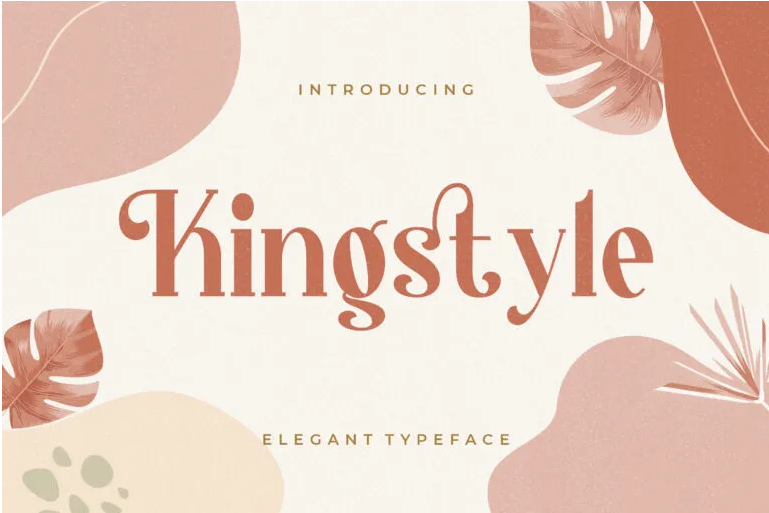
Kingstyle is an elegant typeface serif font. The font has very distinguishable dots for the letters i and j. With an artistic touch, Kingstyle uses a creative serif that makes this font elegant.
4. Westlynn
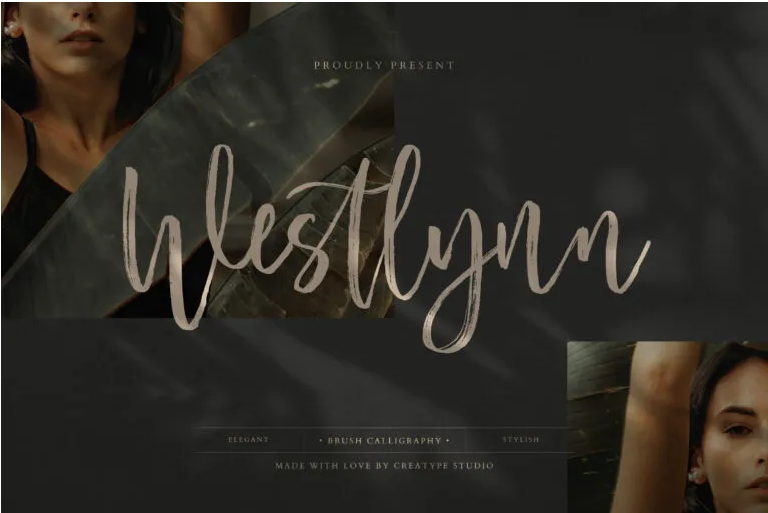
If you look at it at a glance, Westlynn is just beautiful. It’s a brush calligraphy font with a script writing style. Westlynn has the charm of asymmetrical letters. Perfectly fit for a unique typography of your logo design.
5. Graphire
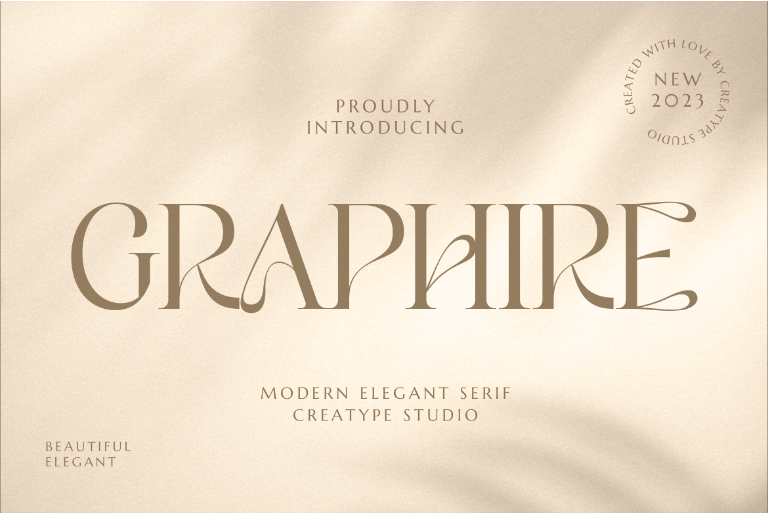
For a more modern look on your elegant logo, you can take a look at Graphire. Graphire is a serif-type font. It is an elegant font for logos with a clear, thick, and thin stroke contrast. In addition, the alternatives (the curves) allow you to personalize your logo further.
6. Kallisoka
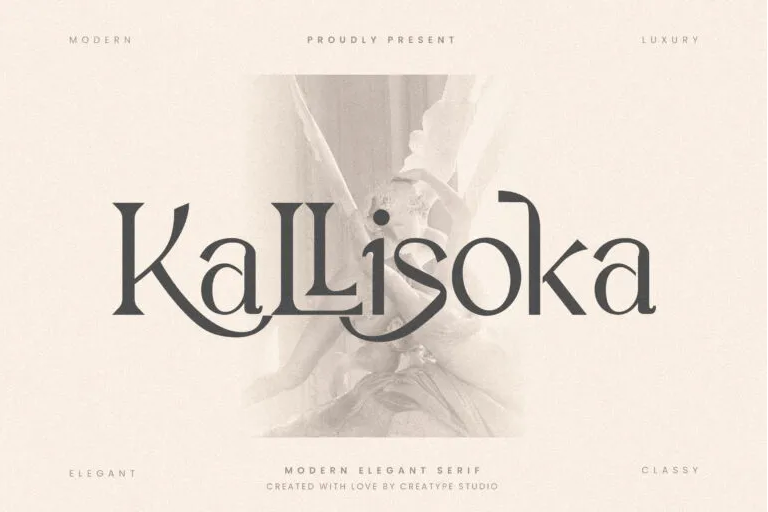
Kallisoka is a unique serif font. It is a very versatile font and you can use it for an elegant vibe or a natural look. Kallisoka is easy to read, which further highlights your logo. Its many alternatives make it a perfect font for your logo design.
7. Quadrangle
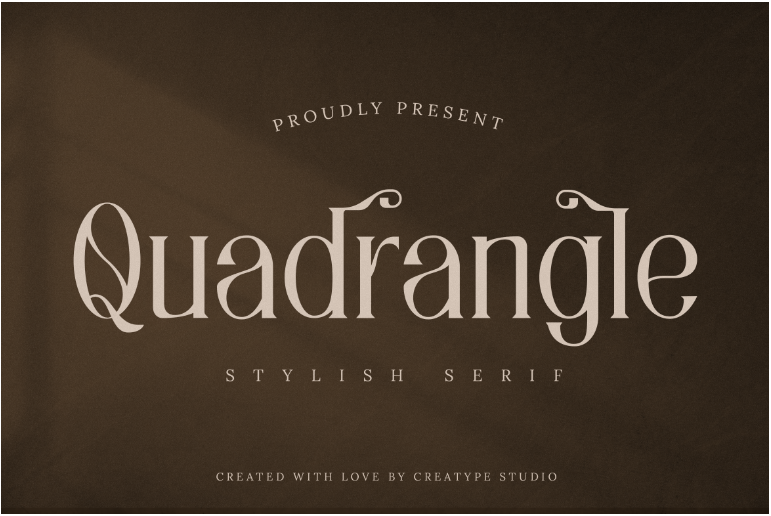
Quadrangle is a stylish serif font. The uniqueness of this font lies in its characteristics. It fits both luxurious and vintage logos, depending on how you pair it with colors. The sharp edges and that harmonious twist made Quadrangle unique and elegant.
8. Wastogi
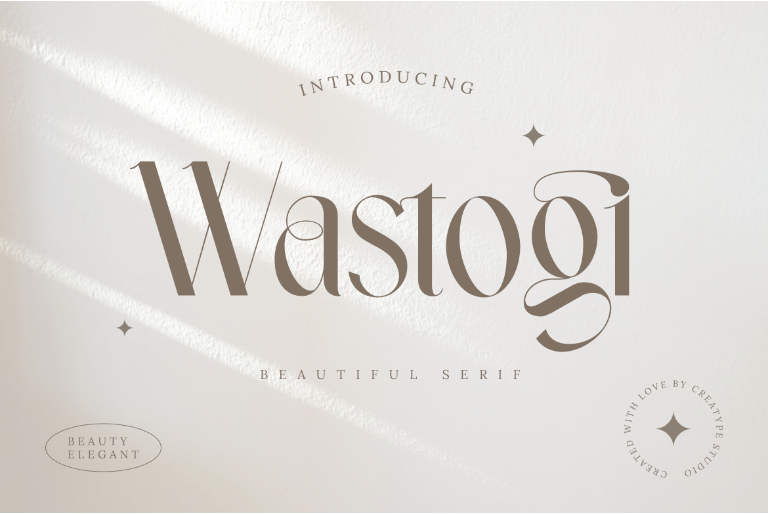
Another serif font with remarkable beauty. Wastogi certainly fits as an elegant font for logos. Every stroke in the letter is simple and light, but with the prominent style of the artist, the font becomes luxurious and sleek.
9. Jeteveux
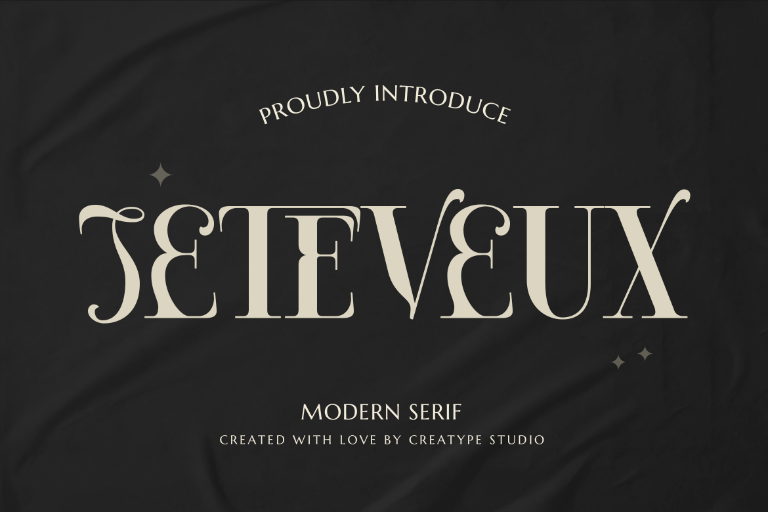
For those of you who want a little more irregular fonts, Jeteveux is perfect for you. Jeteveux is a serif font with a wide range of alternatives, but of course, it’s still a luxurious and elegant font for your logo design. It has a noticeable quirk for some upper case letters, like: e,f,j, and t.
10. Bestari
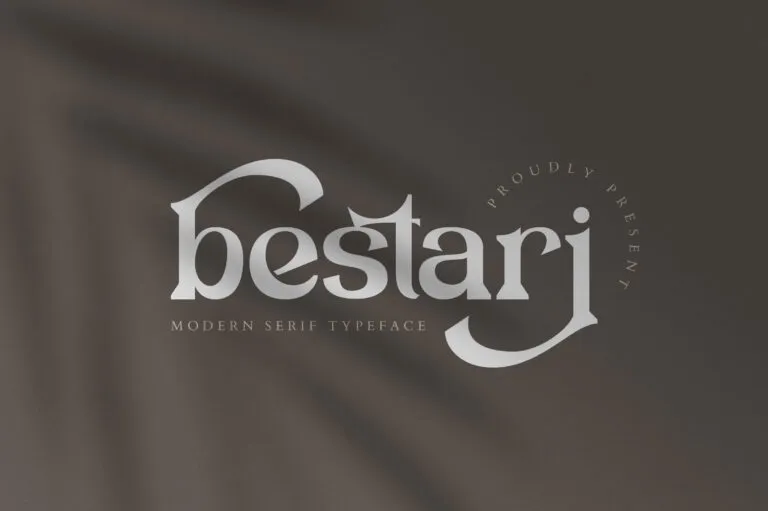
Bestari is wavy. This modern serif typeface is different compared to the others. It is aesthetic, bubbly, and bold. In addition, this good-looking font makes the elegant fonts for logo design. With all the curves, Bestari makes a distinguishable logo typography.
11. Stockist
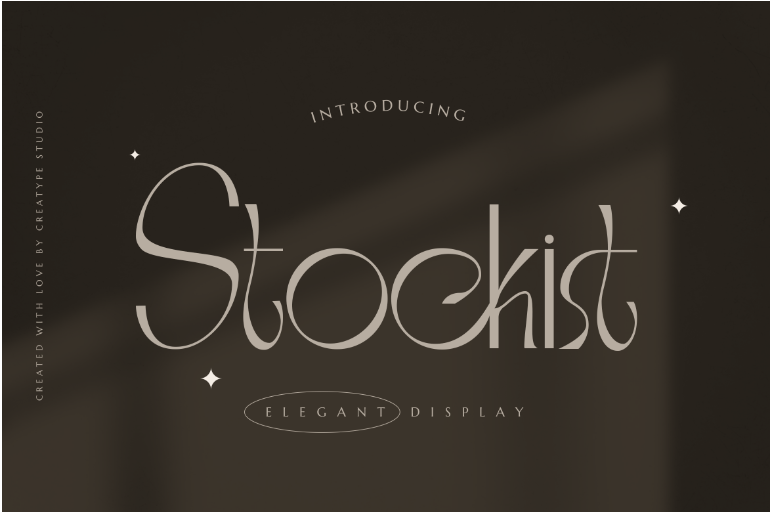
Stockist is different than the other elegant fonts because it is also playful. This display font has a character to fit your beauty brands, such as cosmetics, magazines, or fashion brands. Stockist also provide multilingual letters to add variety to your brand name.
12. Gothicha
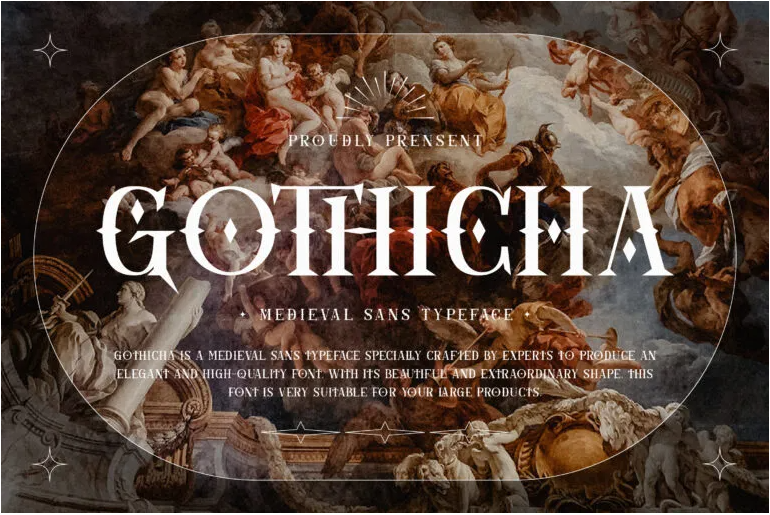
For those who desire more periodical elegance, Gothicha is the font you need. This sans font is inspired by the medieval era. You can use this font type for your medieval products or maybe a gothic vibe.
13. Nakytta
This classy and elegant font is going to make your logo stand out. Nakytta incorporates the typical lowercase letters into the uppercase. Not only that, this monoline script font is handwritten to fit any occasion.
Try These Elegant Fonts for Logos!
The best thing about these fonts is they’re easily recognizable. If you use these elegant fonts for your logo design, the typography, and the style can make your brand stand out.